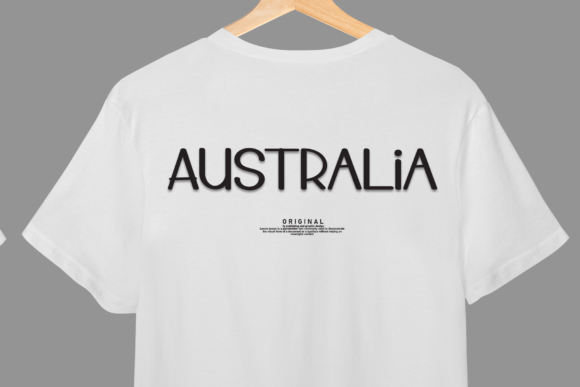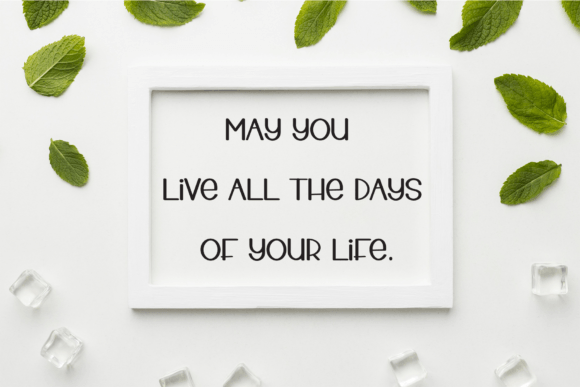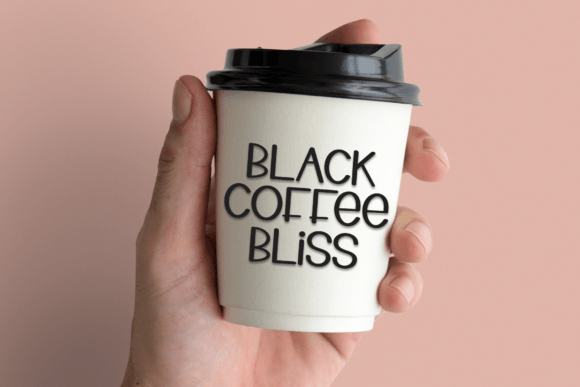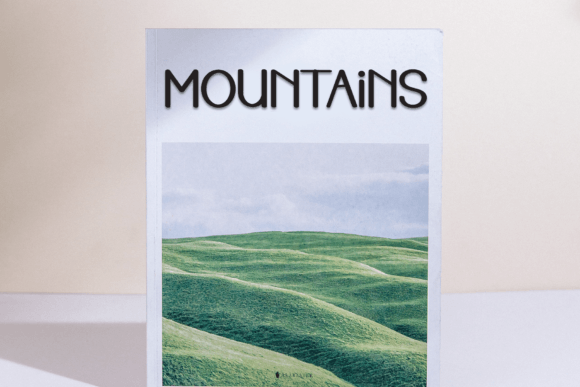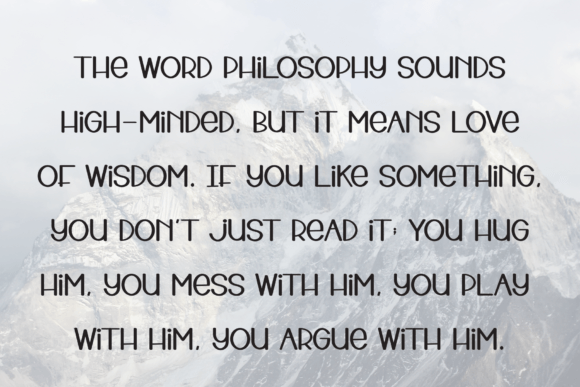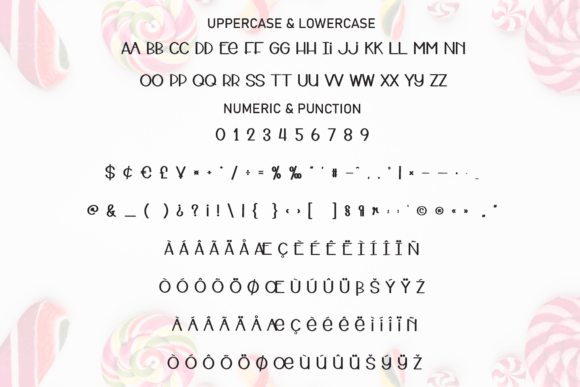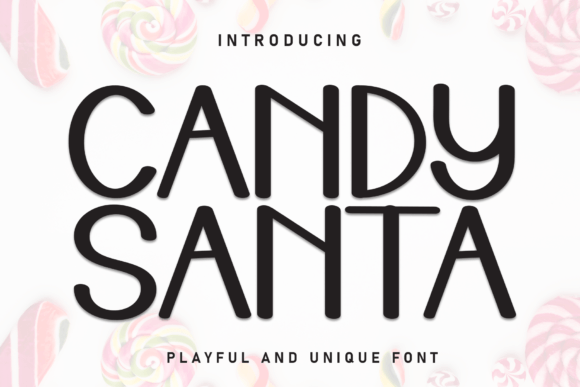
Candy Santa Font: The Perfect Addition to Your Design Projects
Are you looking for a font that can add a touch of warmth and authenticity to your design projects? Look no further than the Candy Santa font. This casual handwritten font is perfect for designers and crafters who want to create a relaxed and friendly vibe in their work. In this article, we’ll take a closer look at the Candy Santa font, its features, and how you can use it to elevate your designs.
What is Candy Santa Font?
Candy Santa is a beautiful, casual handwritten font that captures a relaxed and friendly vibe with its natural, flowing strokes. The font’s effortless style adds warmth and authenticity to any design, making it perfect for personal projects, social media, and invitations. Whether you’re a designer, crafter, or simply someone who loves to create, the Candy Santa font is an excellent choice.
Key Features of Candy Santa Font
- Casual and Handwritten: The Candy Santa font has a casual, handwritten feel that makes it perfect for designs that require a personal touch.
- Natural and Flowing Strokes: The font’s natural, flowing strokes give it a relaxed and friendly vibe that’s hard to achieve with more formal fonts.
- Effortless Style: The Candy Santa font has an effortless style that adds warmth and authenticity to any design.
- Versatile: The font is versatile and can be used for a wide range of design projects, from personal projects to social media and invitations.
Why Choose Candy Santa Font?
So, why should you choose the Candy Santa font for your design projects? Here are just a few reasons:
- Unique and Eye-Catching: The Candy Santa font is unique and eye-catching, making it perfect for designs that need to stand out.
- Easy to Read: The font is easy to read, even at small sizes, making it perfect for body text and captions.
- Customizable: The Candy Santa font is highly customizable, allowing you to adjust the font size, color, and style to fit your design needs.
- Perfect for Personal Projects: The font is perfect for personal projects, such as crafting, scrapbooking, and journaling.
How to Use Candy Santa Font in Your Designs
Using the Candy Santa font in your designs is easy. Here are a few tips to get you started:
- Pair it with Other Fonts: Pair the Candy Santa font with other fonts to create a unique and interesting contrast.
- Use it for Headings and Titles: Use the Candy Santa font for headings and titles to add a touch of personality to your designs.
- Add it to Your Social Media Graphics: Add the Candy Santa font to your social media graphics to make them more engaging and eye-catching.
- Use it for Invitations and Announcements: Use the Candy Santa font for invitations and announcements to add a touch of warmth and authenticity.
Tips and Tricks for Working with Candy Santa Font
Here are a few tips and tricks for working with the Candy Santa font:
- Experiment with Font Sizes: Experiment with different font sizes to find the perfect size for your design.
- Adjust the Tracking: Adjust the tracking to create a more open or closed look.
- Use it with Images: Use the Candy Santa font with images to create a more visually interesting design.
In conclusion, the Candy Santa font is a beautiful, casual handwritten font that’s perfect for designers and crafters who want to add a touch of warmth and authenticity to their designs. With its natural, flowing strokes and effortless style, it’s ideal for personal projects, social media, and invitations. Whether you’re a seasoned designer or just starting out, the Candy Santa font is a great addition to your font collection.
In conclusion, the Candy Santa font is a great choice for designers and crafters who want to add a touch of personality to their designs. Its unique and eye-catching style, ease of use, and versatility make it a valuable addition to any font collection.